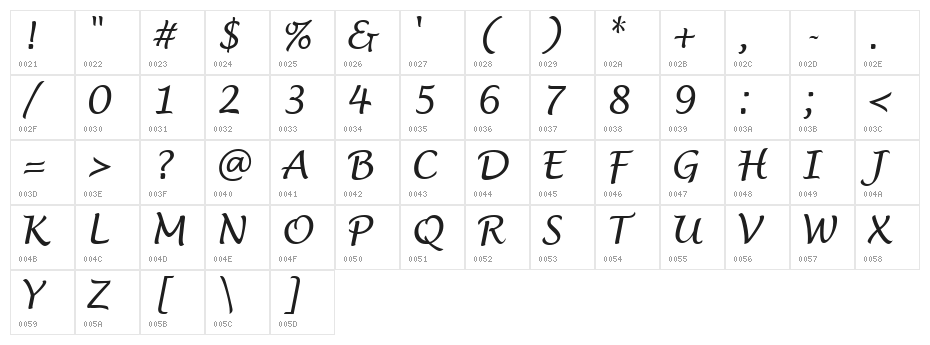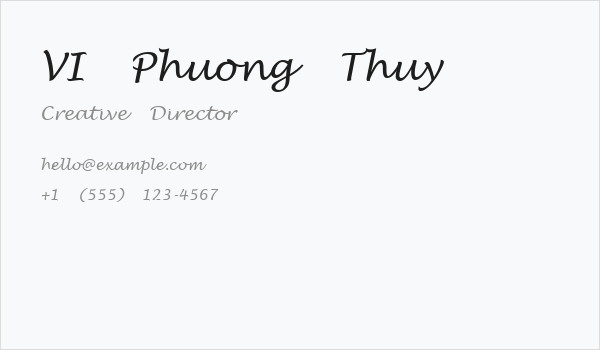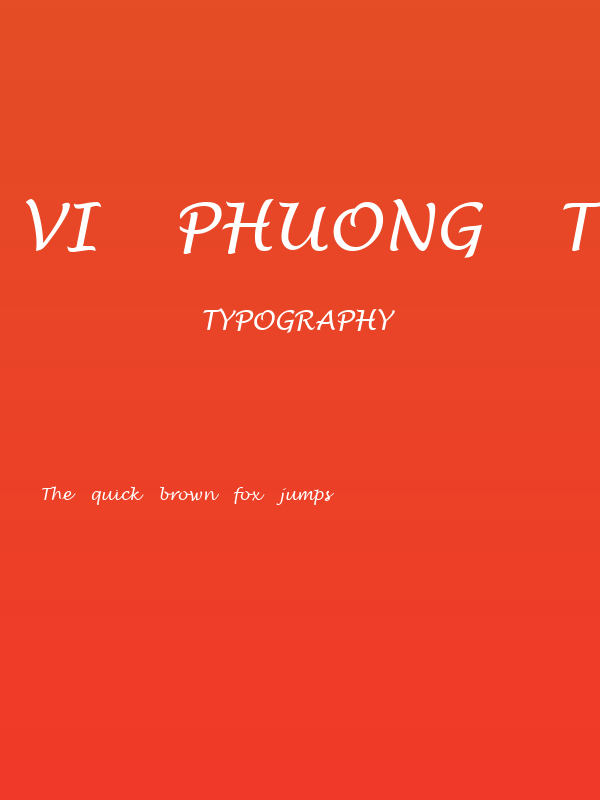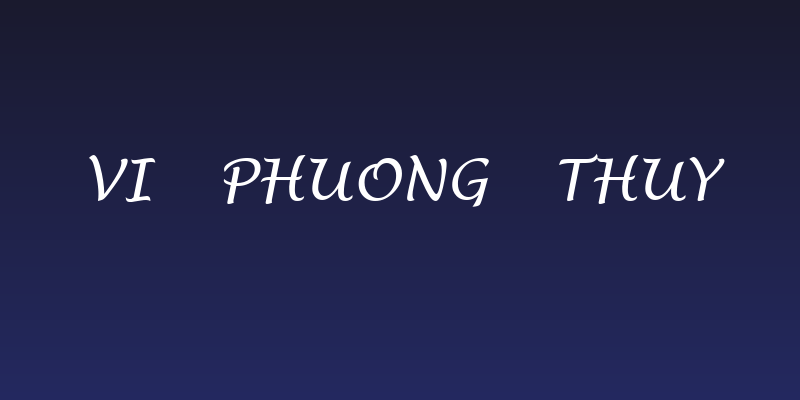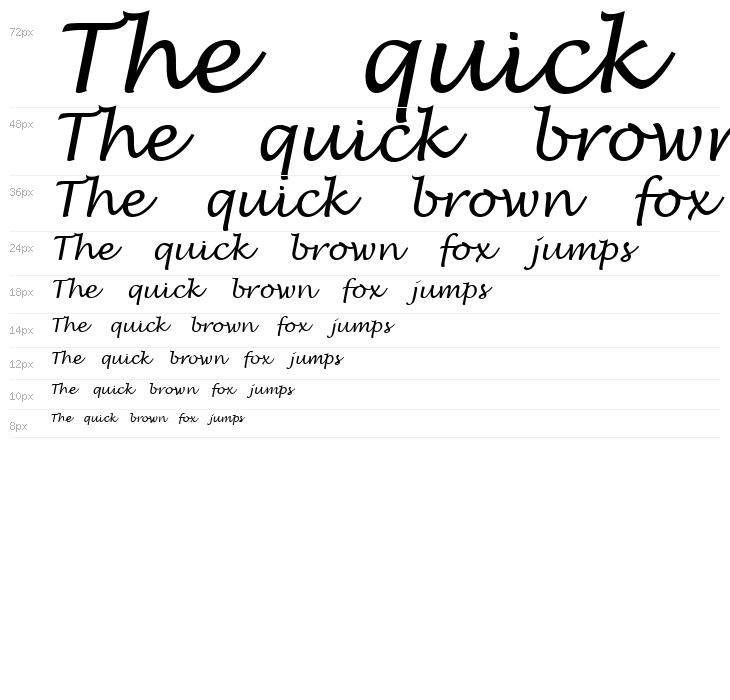
VI Phuong Thuy Font
VI Phuong Thuy Description
This font exhibits a classic and elegant script style with a smooth, flowing appearance. The characters are slightly slanted, giving it a dynamic and sophisticated look. Uppercase letters are distinct with graceful curves, while lowercase letters maintain a consistent flow, enhancing readability. The numerals are well-proportioned, complementing the overall aesthetic. Special characters are designed with the same fluidity, ensuring a cohesive appearance across all glyphs. The font's design is suitable for projects that require a touch of elegance and tradition.
| Use Case | Headlines, Invitations, Branding |
| Proposed Projects | Ideal for wedding invitations, formal event programs, elegant branding, and classic book covers. |